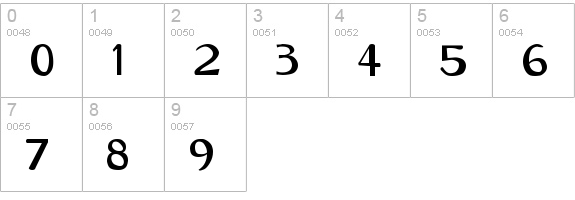
CarawayBold Font Details
CarawayBold is a modern and elegant display font that exudes sophistication and style. With its bold and distinct letterforms, CarawayBold commands attention and adds a touch of luxury to any design project. The sleek lines and unique curves of this font make it perfect for headlines, logos, packaging, and more. And the best part? CarawayBold is completely free to download at FontsMarket.com. So whether you're a professional designer looking to add a touch of class to your creations or a hobbyist looking to elevate your projects, CarawayBold is the perfect choice. Download it today and give your designs the stylish edge they deserve.